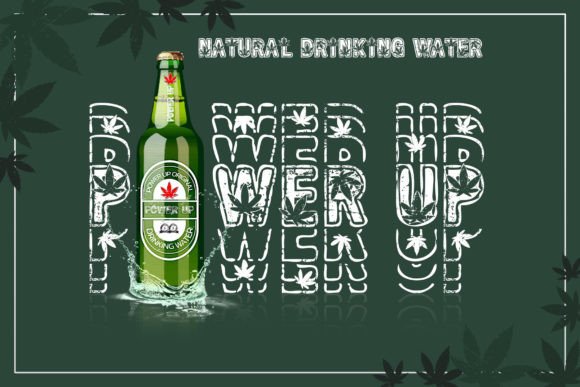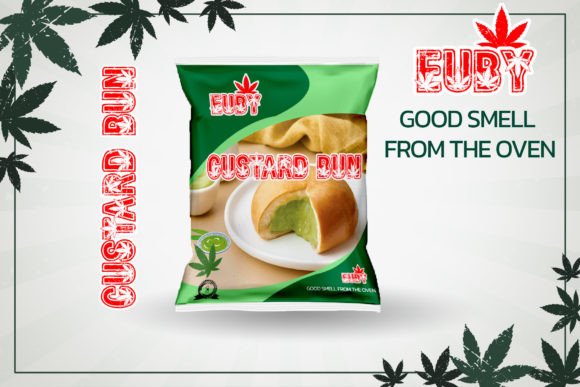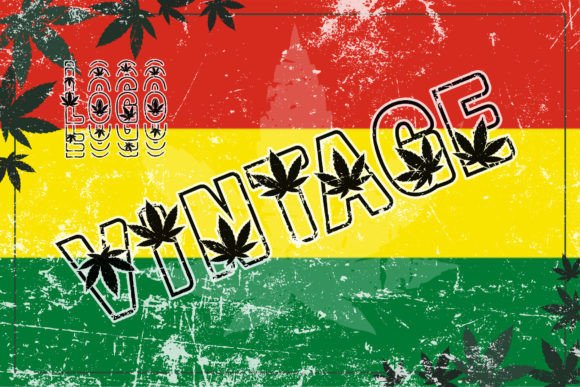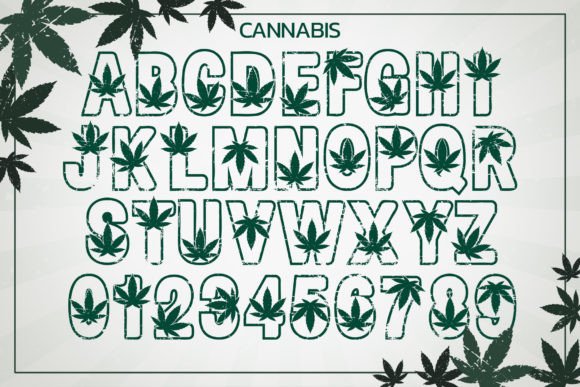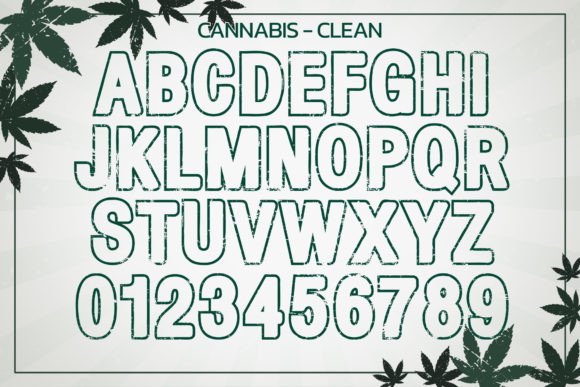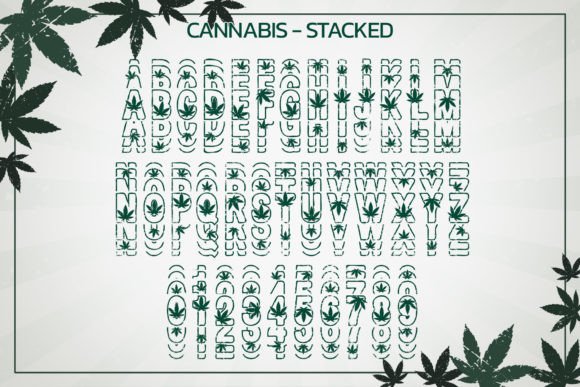
Cannabis Retro Font: The Ultimate Choice for Fresh and Trendy Designs
Cannabis Retro is an incredibly cool display font family that has taken the design world by storm. Whether you use it for custom designs, DIY crafts, or just any creation that requires a fresh and trendy touch, this font will be an amazing choice! In this article, we’ll dive into the world of Cannabis Retro Font, exploring its features, benefits, and uses, making it a must-have for designers and crafters alike.
What is Cannabis Retro Font?
Cannabis Retro Font is a stylish and modern display font family designed to add a touch of nostalgia and playfulness to your designs. Its unique and quirky style makes it perfect for creating eye-catching headings, titles, and slogans that are sure to grab attention. The font comes in a range of styles, making it versatile and adaptable to various design projects.
Key Features of Cannabis Retro Font
- Unique and Quirky Style: Cannabis Retro Font boasts a distinctive and stylish design that sets it apart from other fonts.
- Versatile and Adaptable: The font family comes in multiple styles, making it suitable for a wide range of design projects, from custom designs to DIY crafts.
- Easy to Read: Despite its playful and decorative nature, Cannabis Retro Font remains clear and legible, ensuring your message gets across effectively.
- Scalable: The font is designed to perform well at various sizes, making it perfect for use in both digital and print designs.
Benefits of Using Cannabis Retro Font
So, why choose Cannabis Retro Font for your next design project? Here are just a few benefits you can expect:
- Adds a Fresh and Trendy Touch: Instantly update your designs with a modern and stylish font that will make them stand out.
- Perfect for Creative Projects: Whether you’re working on custom designs, DIY crafts, or other creative endeavors, Cannabis Retro Font is an excellent choice.
- Great for Headings and Titles: The font’s bold and playful style makes it ideal for creating attention-grabbing headings and titles.
Use Cases for Cannabis Retro Font
The versatility of Cannabis Retro Font makes it suitable for a wide range of design projects, including:
- Custom Designs: Use the font to create unique and personalized designs for clients or personal projects.
- DIY Crafts: Add a touch of personality to your DIY crafts, such as handmade cards, posters, or signs.
- Digital Designs: Incorporate Cannabis Retro Font into your digital designs, including social media graphics, blog posts, or website headers.
- Print Designs: The font is also perfect for print designs, such as flyers, brochures, or business cards.
Tips for Using Cannabis Retro Font
To get the most out of Cannabis Retro Font, here are some tips to keep in mind:
- Use it Sparingly: While the font is eye-catching, it’s best to use it sparingly to avoid overwhelming your design.
- Pair it with Other Fonts: Experiment with pairing Cannabis Retro Font with other fonts to create a unique and visually appealing design.
- Adjust Font Size and Color: Play around with different font sizes and colors to find the perfect combination for your design.
Cannabis Retro Font is an incredibly cool display font family that can add a fresh and trendy touch to your designs. With its unique and quirky style, versatility, and ease of use, it’s an excellent choice for designers and crafters alike. Whether you’re working on custom designs, DIY crafts, or other creative projects, Cannabis Retro Font is sure to impress. So why wait? Download Cannabis Retro Font today and take your designs to the next level!